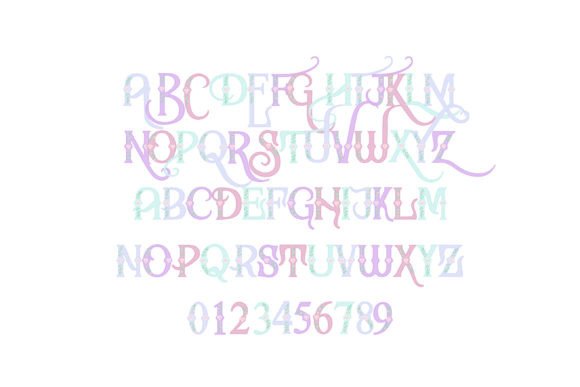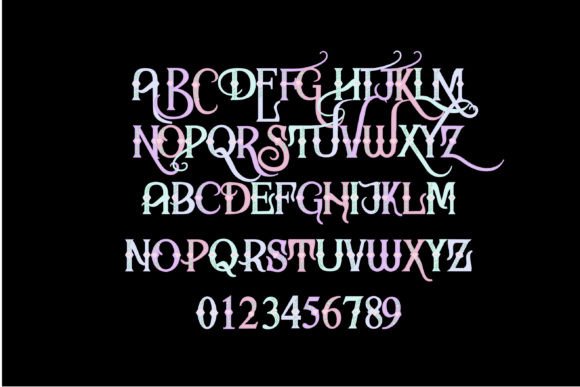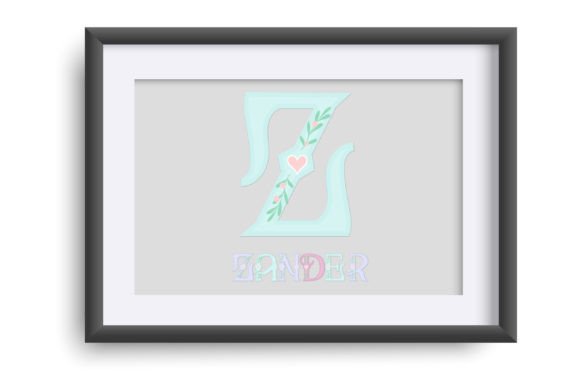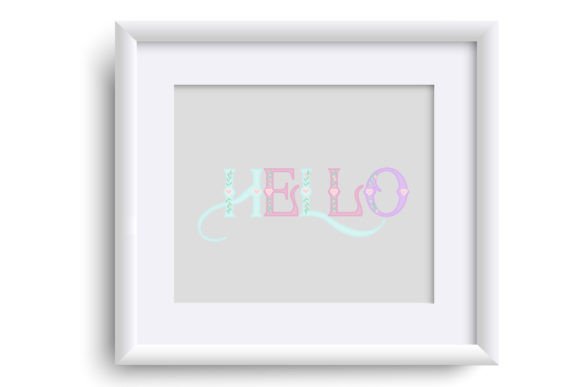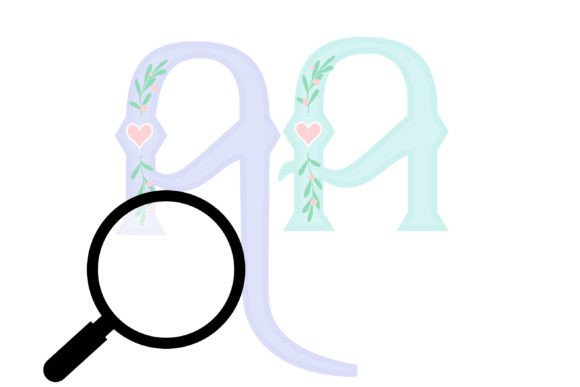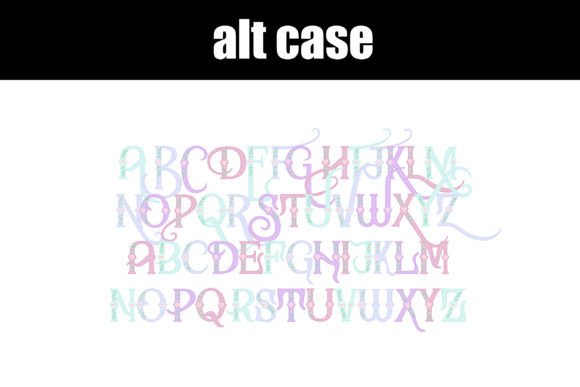
Introducing Artemisia Pastel Font: A Vibrant and Playful Color Font
Are you tired of using the same old fonts in your design projects? Do you want to add a touch of personality and creativity to your text? Look no further than Artemisia Pastel Font, a vibrant and distinctive color font that brings your text to life! With a playful blend of hues and textures, each letter jumps off the page in a riot of shades, making it perfect for designers and crafters who want to make a statement.
What Makes Artemisia Pastel Font So Special?
Artemisia Pastel Font is not your average font. Its unique blend of pastel colors and textures gives it a playful and eye-catching quality that is sure to grab attention. The font is designed to add a touch of whimsy and fun to any design project, making it perfect for a wide range of applications, from invitations and greeting cards to social media graphics and website headers.
Key Features of Artemisia Pastel Font
- Vibrant and Distinctive Colors: Artemisia Pastel Font features a unique blend of pastel colors that give it a playful and eye-catching quality.
- PUA Encoded: The font is PUA encoded, meaning that you can access all delightful glyphs and swashes effortlessly.
- Playful Texture: The font features a playful texture that adds depth and interest to your text.
How to Use Artemisia Pastel Font in Your Design Projects
Artemisia Pastel Font is easy to use and can be incorporated into a wide range of design projects. Here are a few ideas to get you started:
- Invitations and Greeting Cards: Add a touch of personality and whimsy to your invitations and greeting cards with Artemisia Pastel Font.
- Social Media Graphics: Use Artemisia Pastel Font to create eye-catching social media graphics that are sure to grab attention.
- Website Headers: Add a touch of personality to your website headers with Artemisia Pastel Font.
- Crafting Projects: Use Artemisia Pastel Font to add a touch of personality to your crafting projects, such as scrapbooking and journaling.
Tips for Getting the Most Out of Artemisia Pastel Font
Here are a few tips for getting the most out of Artemisia Pastel Font:
- Experiment with Different Colors: Don’t be afraid to experiment with different colors and textures to find the perfect combination for your design project.
- Use it Sparingly: While Artemisia Pastel Font is eye-catching, it can be overwhelming if used too much. Use it sparingly to add a touch of personality to your design.
- Pair it with Other Fonts: Artemisia Pastel Font can be paired with other fonts to create a unique and interesting look.
Artemisia Pastel Font is a vibrant and distinctive color font that brings your text to life! With its playful blend of hues and textures, each letter jumps off the page in a riot of shades, making it perfect for designers and crafters who want to add a touch of personality and creativity to their design projects. Whether you’re creating invitations, social media graphics, or website headers, Artemisia Pastel Font is sure to make a statement.
- What is Artemisia Pastel Font?
- Artemisia Pastel Font is a vibrant and distinctive color font that brings your text to life with a playful blend of hues and textures.
- Is Artemisia Pastel Font easy to use?